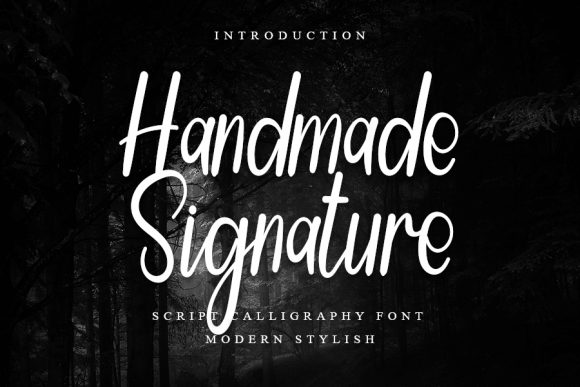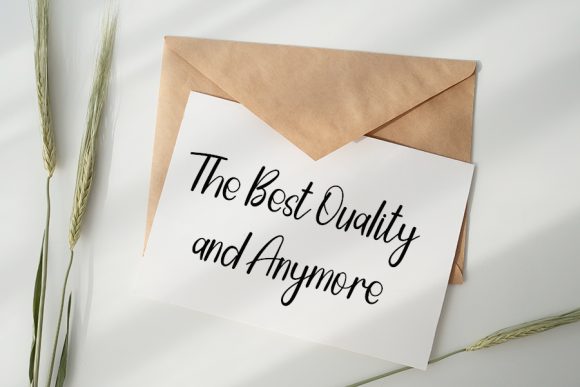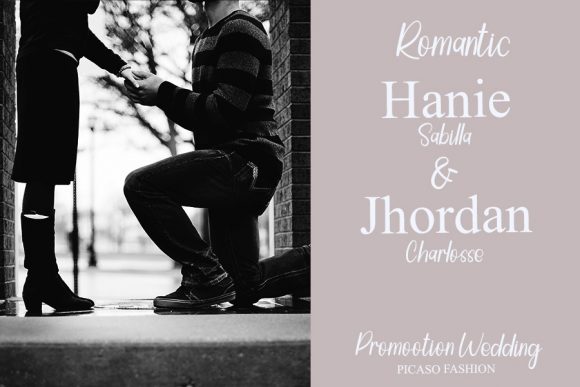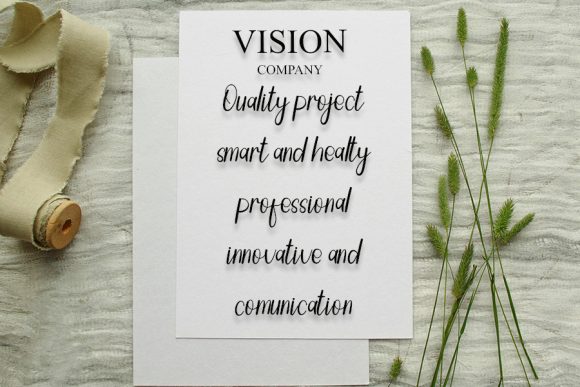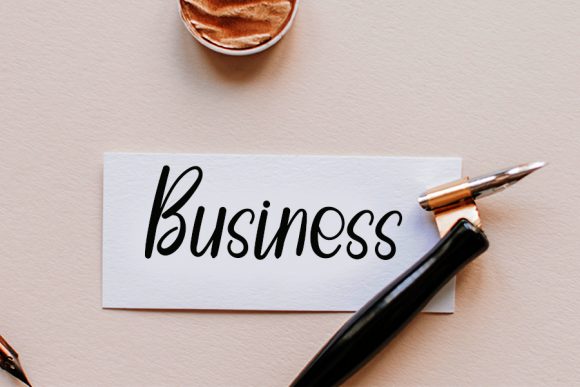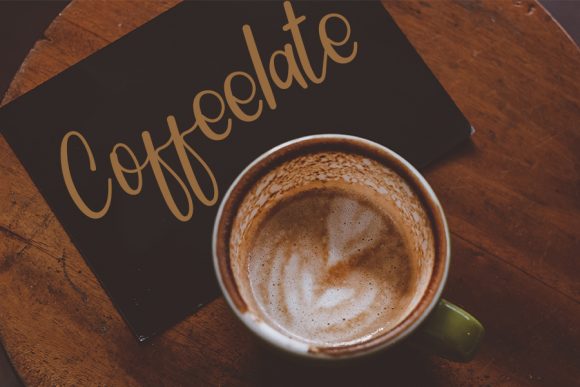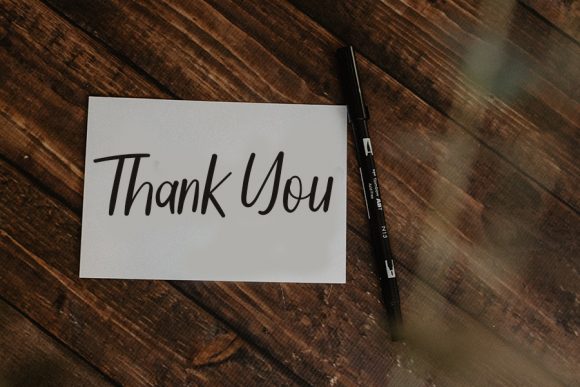
Handmade Signature Font
About Handmade Signature Font
Handmade Signature is a beautiful light handwritten font with a unique feel and a stunning impact. It will add a luxury spark to any design project that you wish to create! This font is PUA encoded which means you can access all of the amazing glyphs and ligatures with ease!